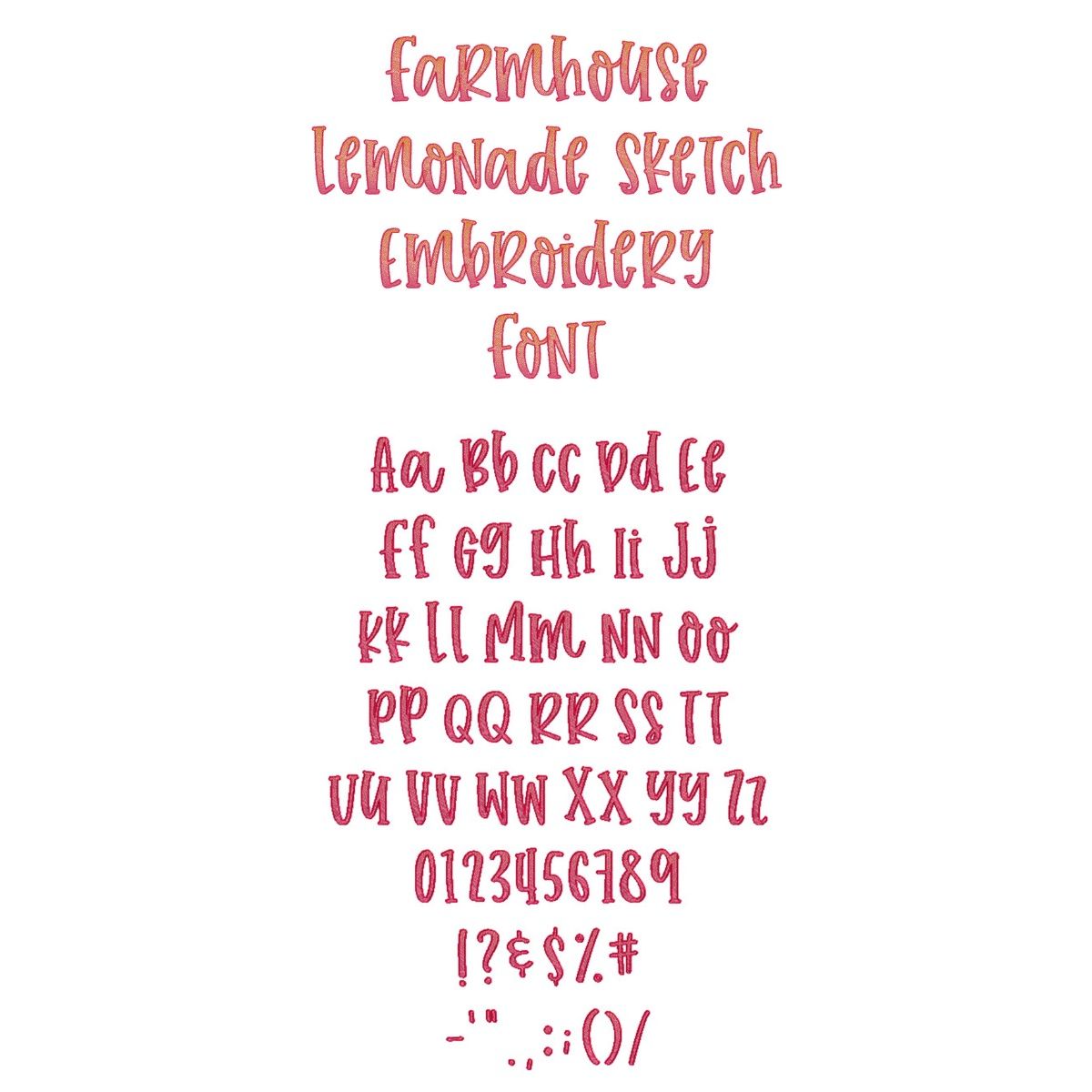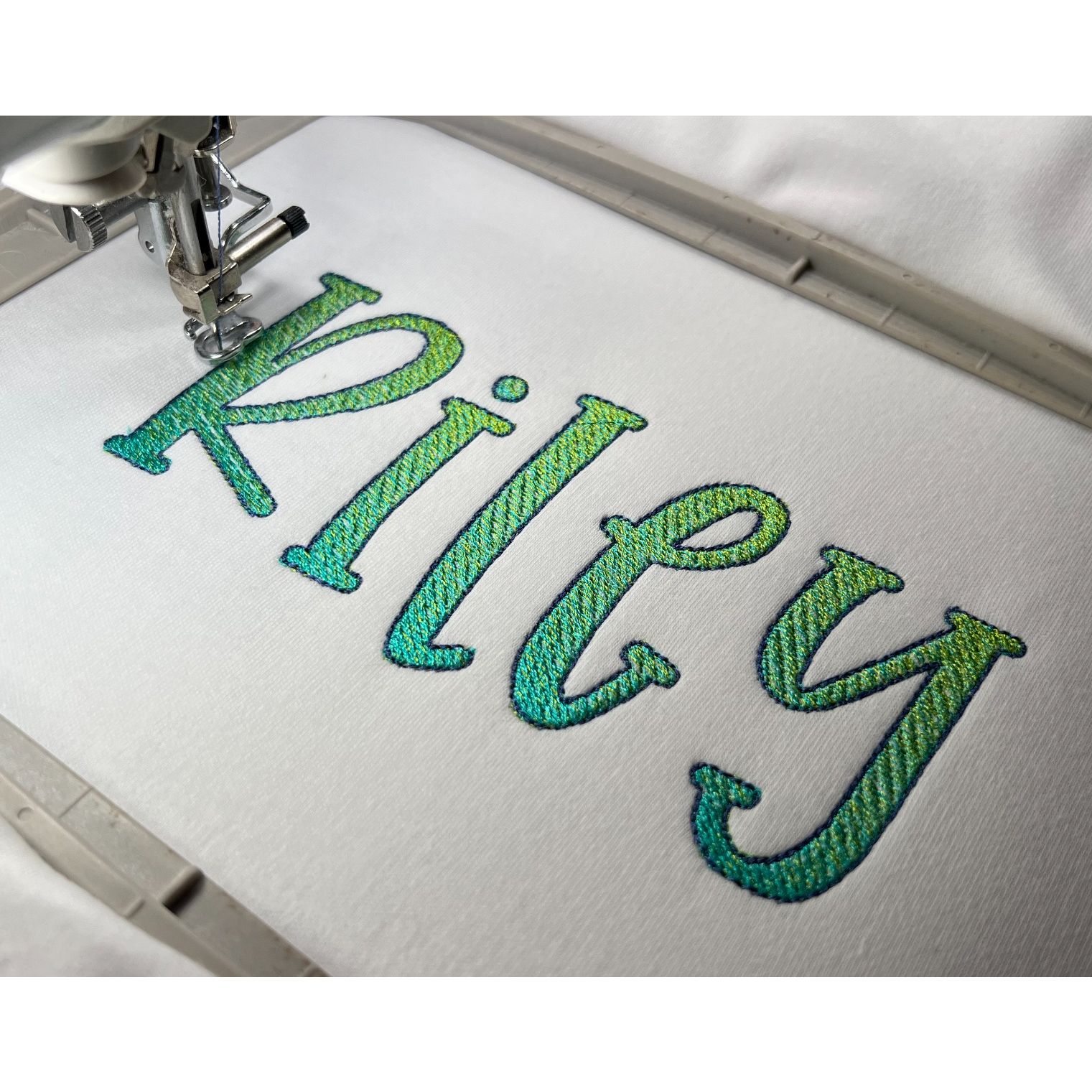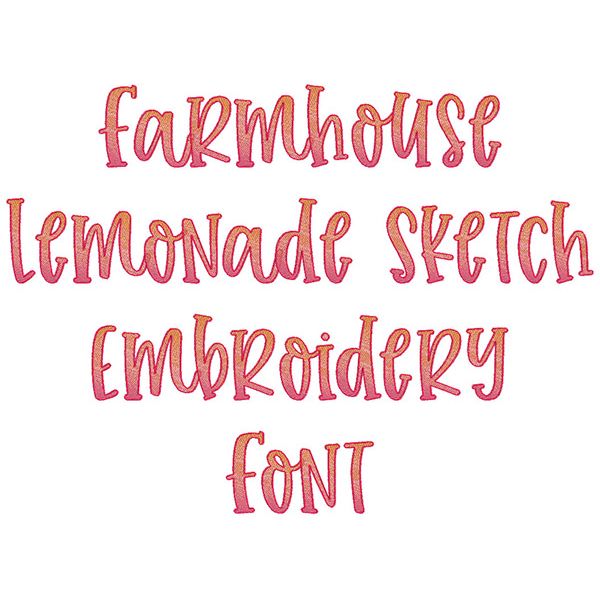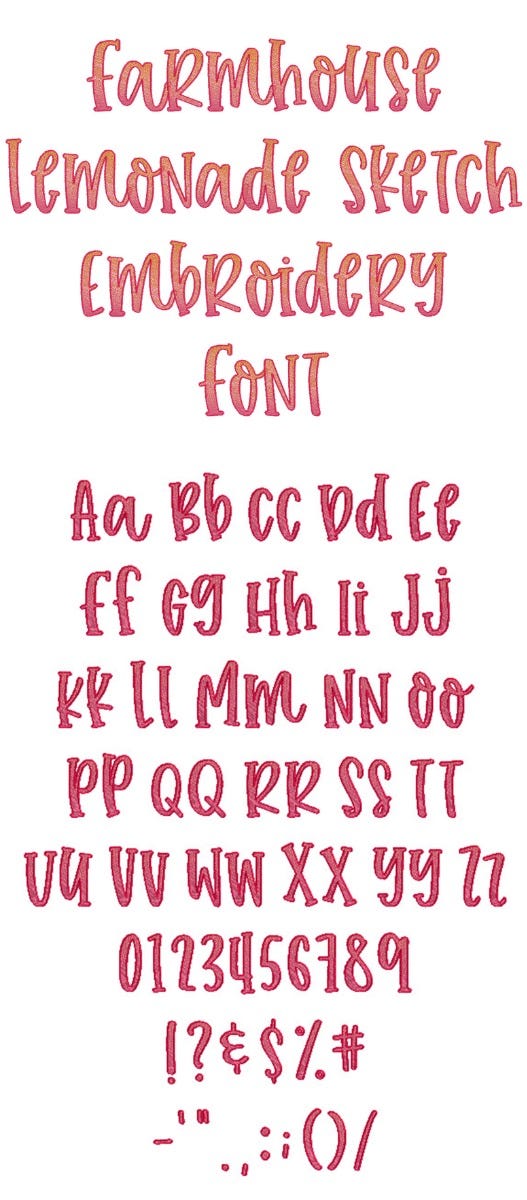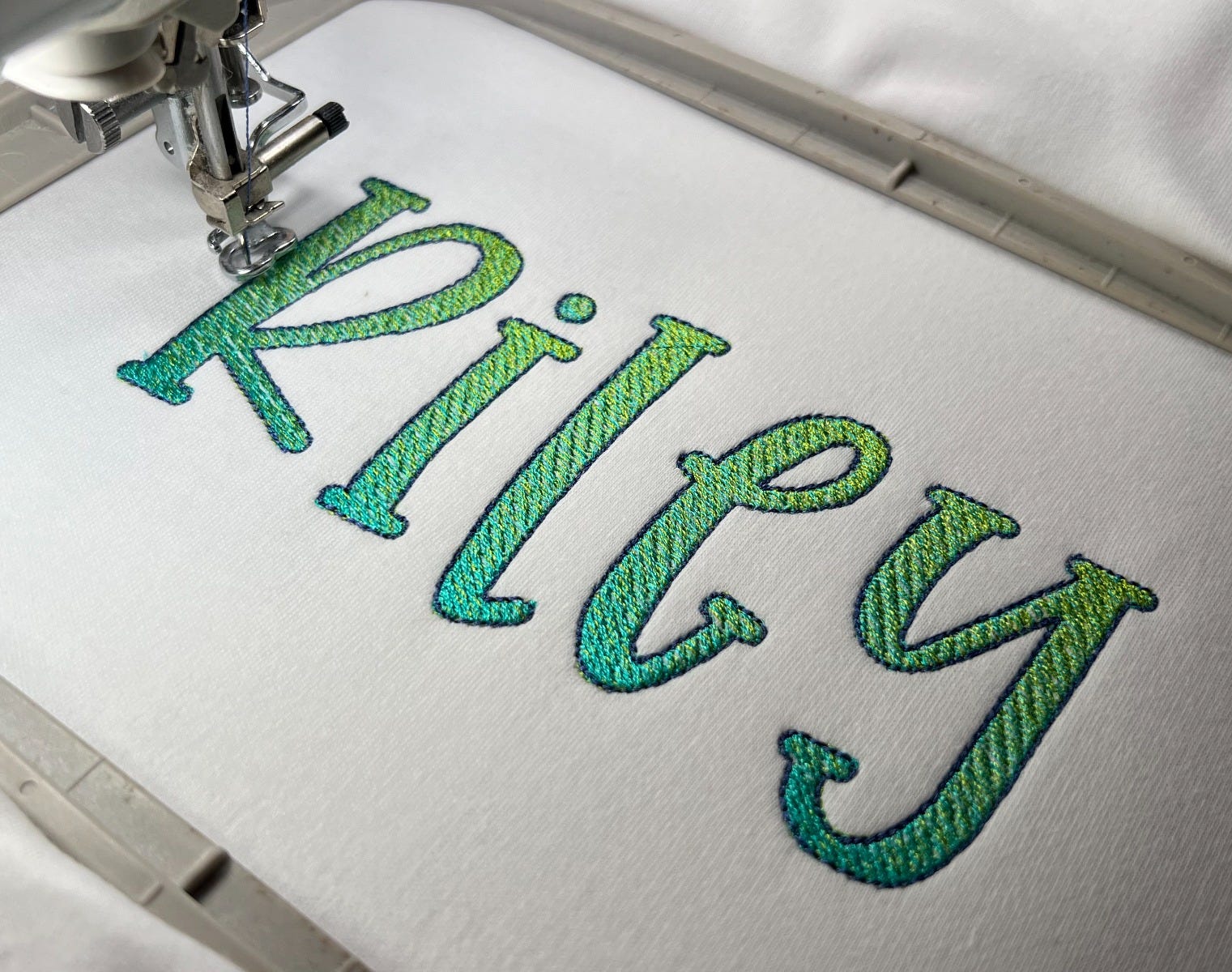
Farmhouse Lemonade Sketch Font
Please note this is not applique nor is it a traditional satin or fill stitch font. The light and airy "sketch" fill pattern allows for a quick stitch out. The space between each line of stitching varies and the two colors combine to create the ombre effect. The letters have an outline in a third color; the 1"-3" sizes have a bean stitch outline, the 3.5"-5" sizes have a stem stitch outline.
The ombre effect works best if the first and second colors are different, but side by side on the color wheel. The ombre effect will be stronger if the first color is lighter than the second; the ombre effect will be more subtle if the two colors are similar in tint or shade. Please refer to sample images in this blog post, which includes further tips about using an ombre sketch font: https://www.designsbyjuju.com/blog/how-to-use-an-ombre-sketch-font/